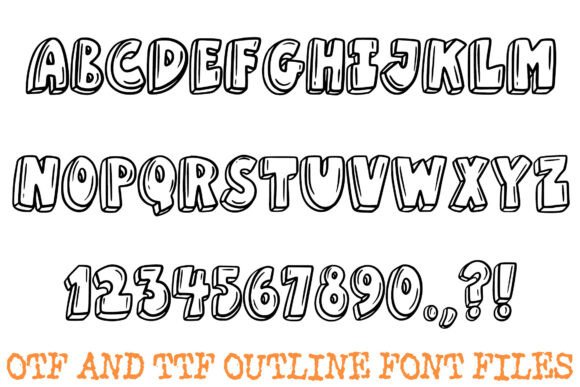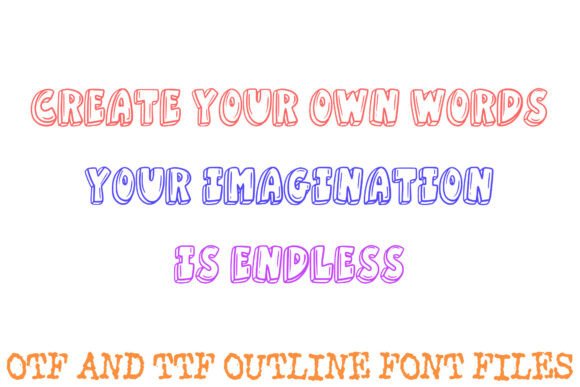
Add a Burst of Dimension to Your Projects with the Bold 3D Bubble Font!
Are you looking for a font that can add a touch of excitement and energy to your designs? Look no further than the Bold 3D Bubble Font! This hand-drawn display alphabet is the perfect choice for designers and crafters who want to create high-impact children’s branding, comic book lettering, vibrant stickers, and other creative projects that need to jump off the page.
What Makes the Bold 3D Bubble Font So Special?
The Bold 3D Bubble Font features chunky, rounded characters with unique inner detail lines that create a striking 3D pop-out effect. This font is designed to make your headlines impossible to miss, with a heavyweight and playful silhouette that maintains an approachable, artisan feel. Whether you’re designing for a superhero-themed birthday, bold classroom decor, or trendy apparel, the Bold 3D Bubble Font delivers a professional, energetic look that stands out.
Why Your Designs Will Stand Out with the Bold 3D Bubble Font
So, what makes the Bold 3D Bubble Font so effective at grabbing attention? Here are just a few reasons why your designs will stand out:
- 3D Detail Lines: Every character in the Bold 3D Bubble Font includes carefully placed internal lines that simulate depth and shading for a professional “pop”. This creates a sense of dimension and visual interest that draws the eye.
- Ultra-Bold Silhouette: The thick, chunky letterforms provide maximum visibility for logos, headlines, and posters. This font is designed to be seen, making it perfect for designs that need to make a big impact.
- Hand-Drawn Doodle Style: The Bold 3D Bubble Font has a playful, hand-drawn feel that maintains an approachable, artisan vibe. This makes it perfect for designers and crafters who want to add a personal touch to their projects.
The Bold 3D Bubble Font is versatile and can be used for a wide range of projects, including:
- Children’s Branding: Create fun and engaging logos, labels, and packaging for kids’ products with the Bold 3D Bubble Font.
- Comic Book Lettering: Add a bold, dynamic touch to your comic book lettering with this font.
- Vibrant Stickers: Create eye-catching stickers for kids’ parties, events, or marketing campaigns.
- Classroom Decor: Design bold, colorful classroom decor with the Bold 3D Bubble Font.
- Trendy Apparel: Use this font to create fun, fashion-forward designs for t-shirts, hoodies, and other apparel.
Tips for Using the Bold 3D Bubble Font
Here are a few tips for getting the most out of the Bold 3D Bubble Font:
- Experiment with Colors: Try pairing the Bold 3D Bubble Font with bright, bold colors to create a truly eye-catching design.
- Play with Texture: Add texture to your design by layering the Bold 3D Bubble Font over a background image or texture.
- Mix and Match: Combine the Bold 3D Bubble Font with other fonts and design elements to create a unique, layered look.
The Bold 3D Bubble Font is a powerful design tool that can add a burst of dimension and energy to your projects. With its chunky, rounded characters and unique inner detail lines, this font is perfect for designers and crafters who want to create high-impact designs that stand out. Whether you’re working on children’s branding, comic book lettering, or trendy apparel, the Bold 3D Bubble Font is the ultimate choice for adding a professional, energetic look to your designs.